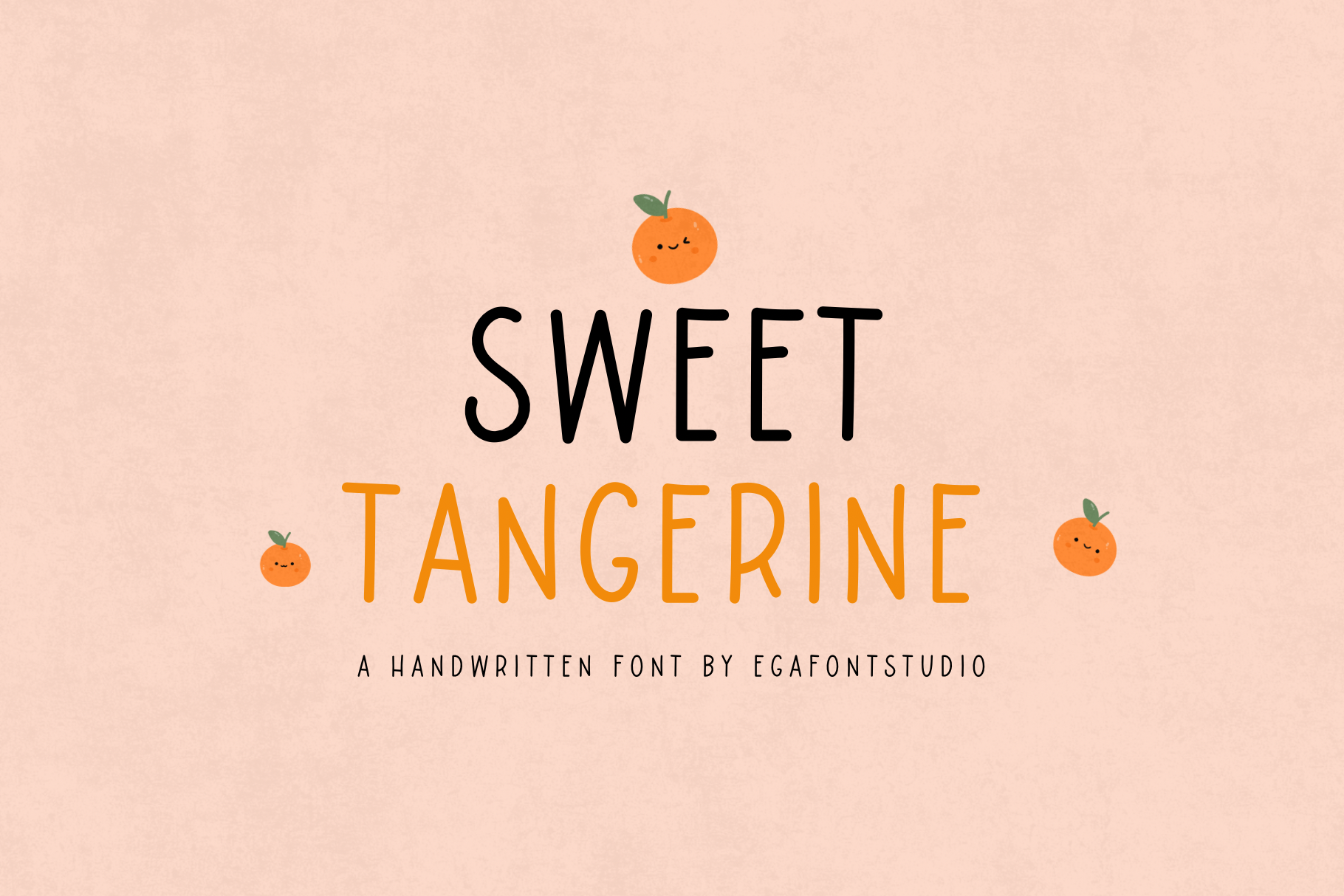
Sweet Tangerine | Handwriting Font
Evoke the zest of creativity with 'Sweet Tangerine', a delightful handwritten font. Adds a playful touch to any project. Whether you're crafting invitations, branding materials, or social media posts, this versatile font brings a fresh, modern twist to your designs.